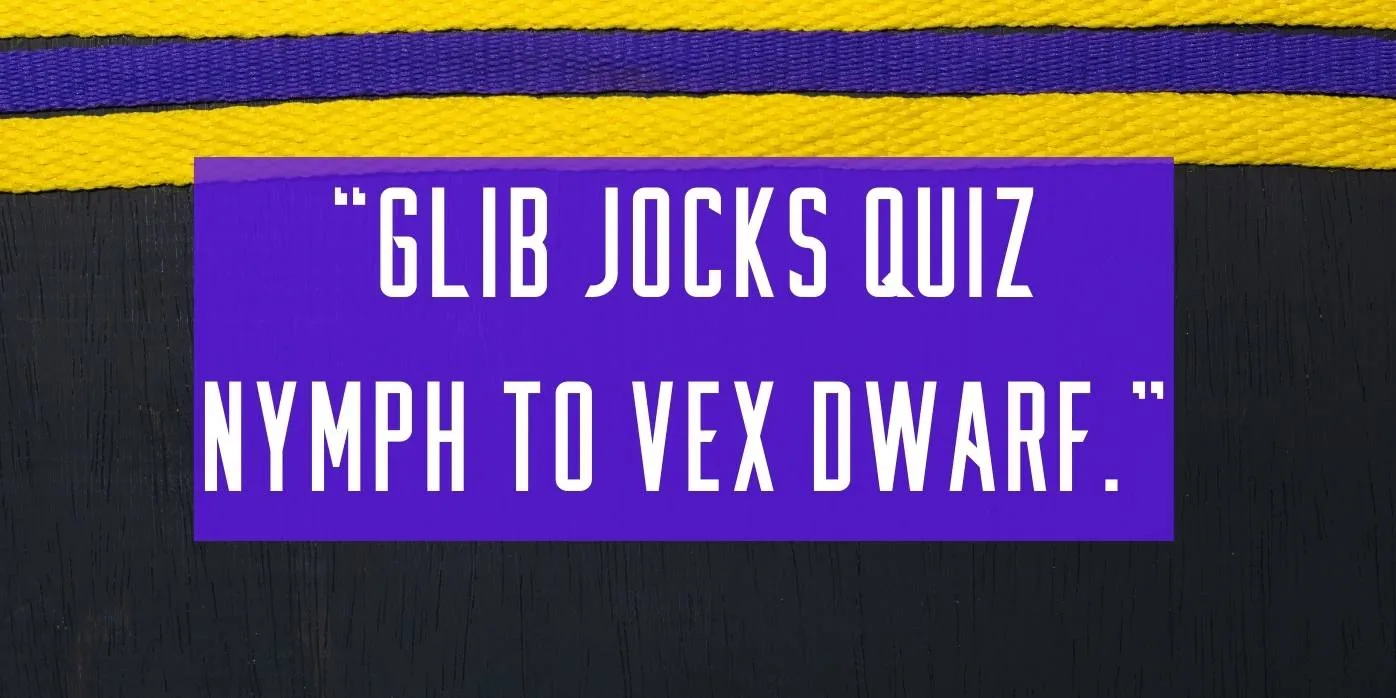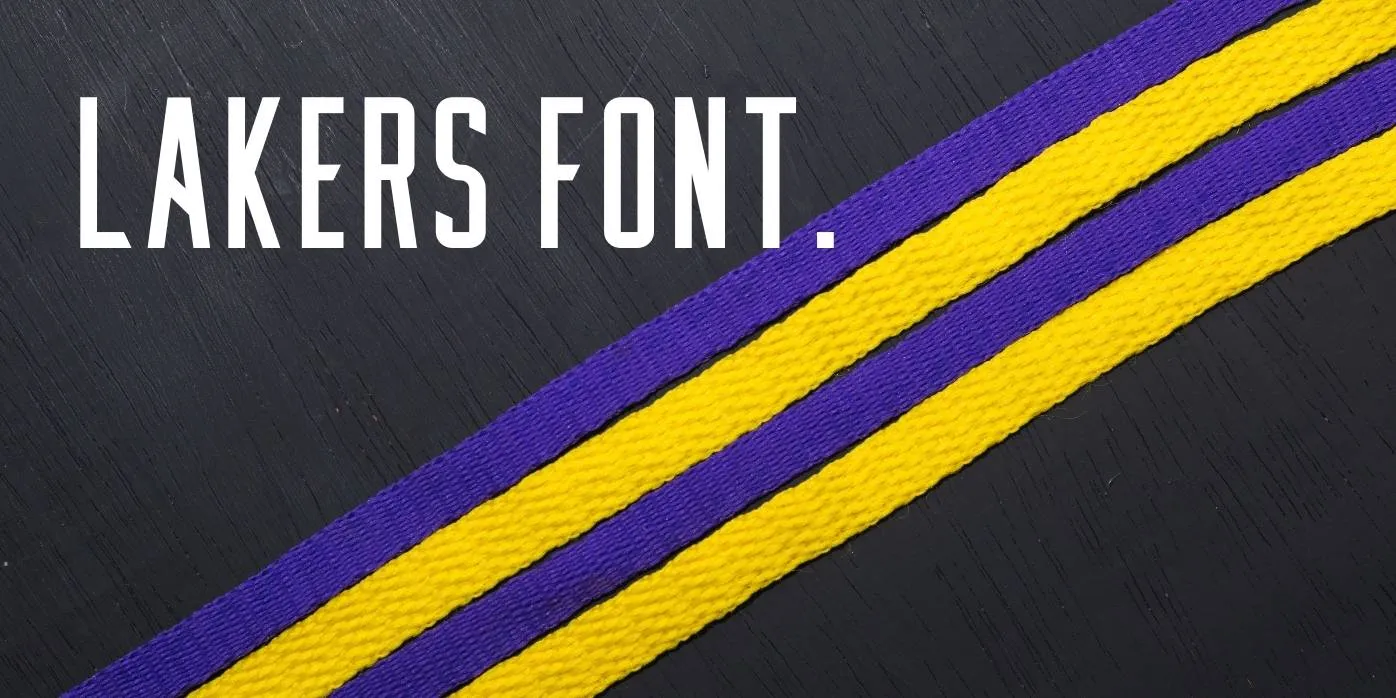
Lakers Font
We are consulting about the famous and marvelous font family that was known as Lakers Font. Laker is one of the most popular and famous football teams all over the world. The famous place where this match has been played is known as  Minnesota. In the year 1947, this team was selected.
This famous team won 16 matches and it is a highly expensive team all over the world. This stylish and tremendous font family was used for designing the logo of the popular football team. The logos of this team was fascinating and attractive and make the center of attention for all of the designers. It belongs to the Sans-Serif typeface.
This awesome font family comes in 2 standard weights. These weights are as follows textured and Regular. This classic and glorious font is available in 28 different unique styles. These styles make it more perfect and powerful.
This font family supported a huge variety of international languages. Bodoni Font is one of the famous fonts that is used for designing the logo of the popular football team. It provides extra features when used with the pairing of  Arial Font. Different designers and game graphics designers use font families for their different purposes.